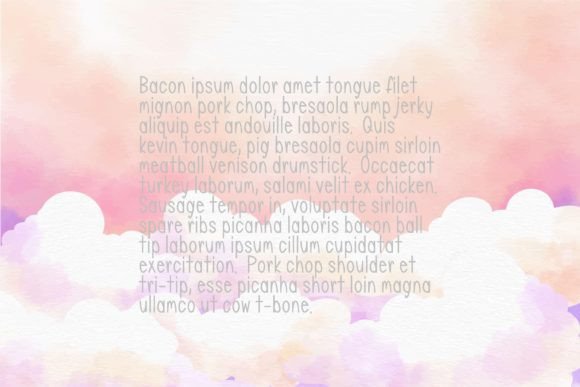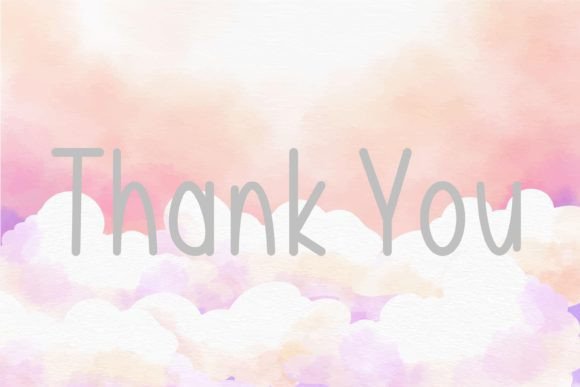
Introducing Aviva Font: The Perfect Handwritten Font for Your Creative Projects
Are you tired of using the same old fonts in your designs? Look no further than Aviva Font, a simple and friendly handwritten font that’s sure to brighten up any project. With its whimsical and quirky touch, Aviva Font is perfect for designers and crafters looking to add a personal touch to their work.
What Makes Aviva Font Special?
Aviva Font is a unique and charming typeface that’s perfect for a wide range of design projects. Its simplicity and friendliness make it approachable and easy to read, while its whimsical touch adds a dash of personality to any design. Whether you’re creating a logo, wedding invitation, quote, advertisement, or print material, Aviva Font is sure to make your project stand out.
Key Features of Aviva Font
- Simple and Friendly: Aviva Font is a handwritten font that’s easy to read and understand, making it perfect for designs that require a personal touch.
- Whimsical and Quirky: With its unique and charming design, Aviva Font adds a dash of personality to any project.
- Versatile: Aviva Font is perfect for a wide range of design projects, including logos, wedding invitations, quotes, advertisements, print materials, magazines, and more.
Aviva Font is perfect for designers and crafters looking to add a personal touch to their work. Whether you’re creating a logo, branding materials, or print materials, Aviva Font is sure to make your project stand out. Its unique and charming design makes it perfect for:
- Logos: Create a unique and memorable logo for your business or brand with Aviva Font.
- Wedding Invitations: Add a touch of elegance and whimsy to your wedding invitations with Aviva Font.
- Quotes: Create inspiring and motivational quotes with Aviva Font, perfect for social media, print materials, or posters.
- Advertisements: Make your advertisements stand out with Aviva Font, perfect for print, digital, or social media ads.
- Print Materials: Create unique and eye-catching print materials, such as brochures, flyers, and posters, with Aviva Font.
- Magazines: Add a touch of personality to your magazine designs with Aviva Font, perfect for headings, titles, and quotes.
Why Choose Aviva Font?
With so many fonts to choose from, why choose Aviva Font? Here are just a few reasons why Aviva Font stands out:
- Unique Design: Aviva Font has a unique and charming design that’s sure to make your project stand out.
- Easy to Read: Aviva Font is easy to read and understand, making it perfect for designs that require a personal touch.
- Versatile: Aviva Font is perfect for a wide range of design projects, making it a great addition to any designer’s toolkit.
- High-Quality: Aviva Font is a high-quality font that’s designed to deliver exceptional results.
| Font Name | Aviva Font |
| Author | Woracado |
In conclusion, Aviva Font is a simple and friendly handwritten font that’s perfect for designers and crafters looking to add a personal touch to their work. With its whimsical and quirky touch, Aviva Font is sure to brighten up any project and make it stand out. Whether you’re creating a logo, wedding invitation, quote, advertisement, or print material, Aviva Font is the perfect choice.